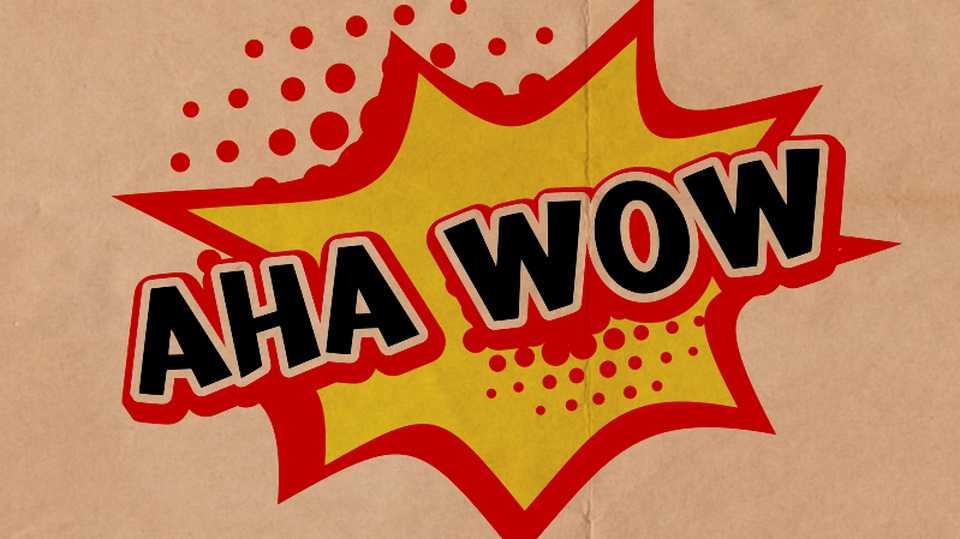
Download Aha Wow font, a bold and fun hand crafted display typeface. Aha Wow is ideal for posters, comics, kids products, games, book covers and other creative graphics.
Designer: Wahyu Eka Prasetya